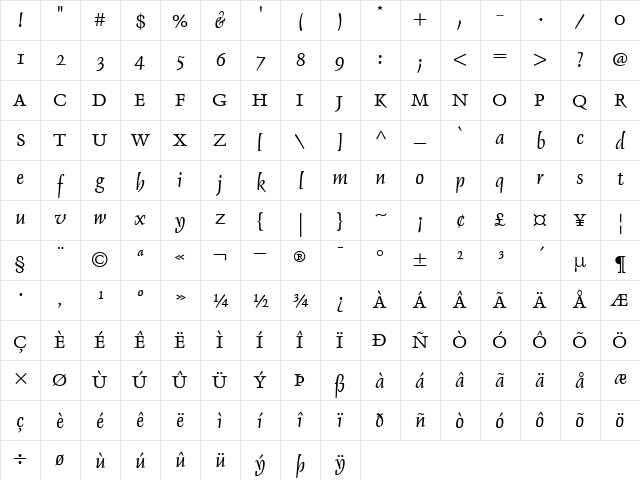
DelphinIA RomanItalic
Style: RomanItalic
Design Context for DelphinIA
DelphinIA is a composed and adaptable typeface that performs quietly and consistently across a wide range of design contexts. The slanted form adds forward momentum and visual energy.